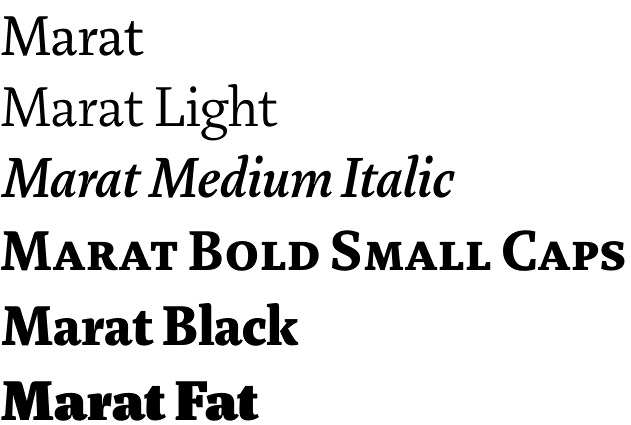
Marat font
Marat font evolved from the originally developed as a magazine face to a comprehensive typeface family. Its elegant and soft rounded letter shapes make it suitable for a wide spectrum of typography applications: editorial, brochures, packaging and corporate design. Special attention deserves the Marat font Bold weight which shows surprisingly good results for a serif typeface.
Marat font comes in five variations (weights) including Italics, Small Caps, various OpenType features (ligatures, case sensitive forms, fractions, superiors and inferiors) and a multilingual support. Each font includes Oldstyle and Lining Figures, both proportional and tabular. Marat is well suited to its match – Marat Sans, a vital and clean sans serif typeface.
Marat font has been selected by the Type Directors Club of New York to receive the Certificate of Excellence in Type Design 2008.
Designers: Ludwig Übele